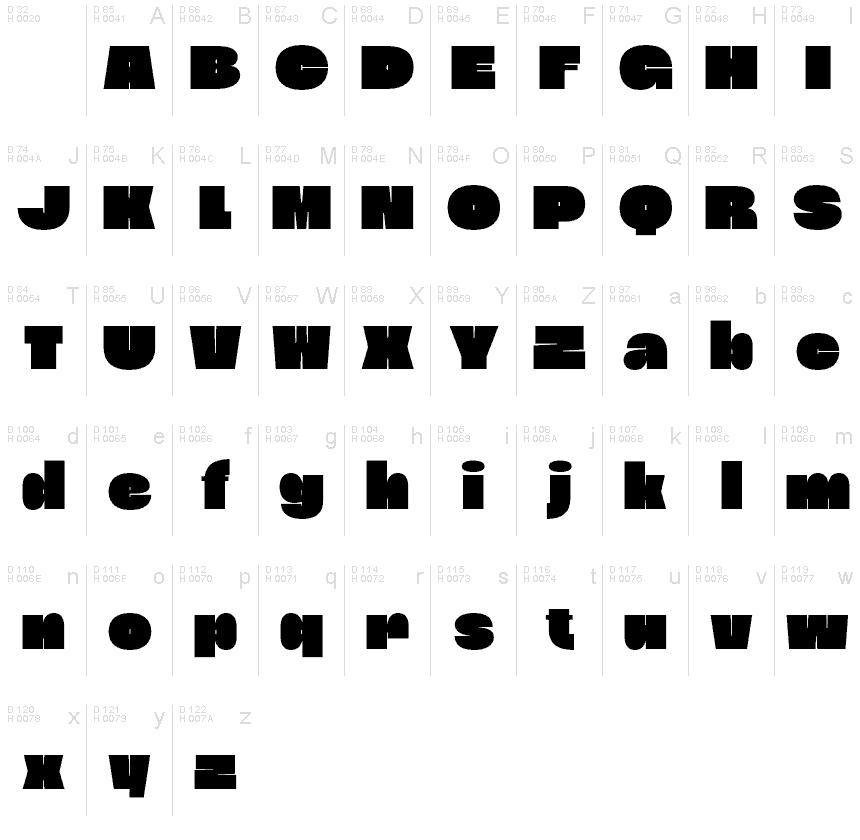
CS Broken Regular Demo
CS Broken font by Craft Supply Co. is a sleek sans serif typeface designed with uniformity and clean lines. Each character appears to have slashes cut into them, giving them a broken look of geometric perfection that is textbook modern art. Of bold weight and expanded width, the font draws attention naturally with each character as impactful as the next.
Use this free broken-looking font in branding and advertising designs for your agency or clients. It would look wonderful in magazine covers, social media theme images, posters, book cover titles, websites especially in headlines, infographics titles, product packaging ideas, flyers and brochures etc.